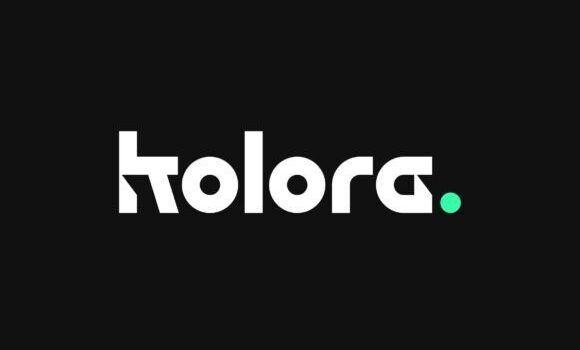
kolora
Kolora Font – Free Download Introduction to Kolora Font Kolora is a cool and modern sans-serif font. 📸 Preview Gallery 6 images 📌 Product Name Kolora Font 👤 Author Artiveko 📂 Category Explore ⬇️ Download Kolora Font FREE Free Download